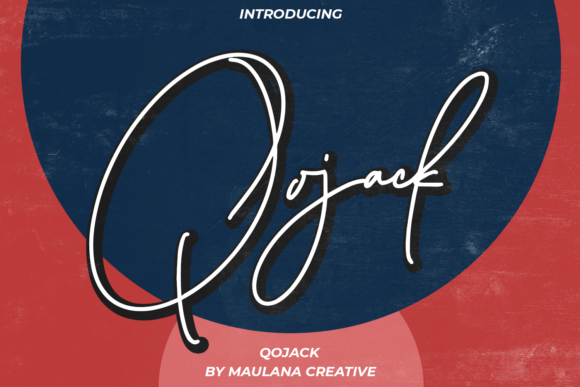
Unleash your creativity with Qojack, the captivating script font that adds a touch of authenticity to your designs. Inspired by the beauty of handwritten signatures, Qojack's elegant strokes and graceful curves bring an organic, personal feel to your projects.
With its signature style, Qojack is the perfect choice for creating logos, branding, and typography quotes that stand out. Its versatility extends to magazine and book covers, website headers, and clothing designs. Whether you're crafting invitations, product packaging, or social media graphics, Qojack's charm will leave a lasting impression.
Express yourself with the flowing lines of Qojack, embodying the beauty of handwritten art. Its brush-like texture adds depth and character, making your designs truly unique. Let your imagination soar as you explore the endless possibilities of Qojack, transforming your ideas into captivating visual experiences.